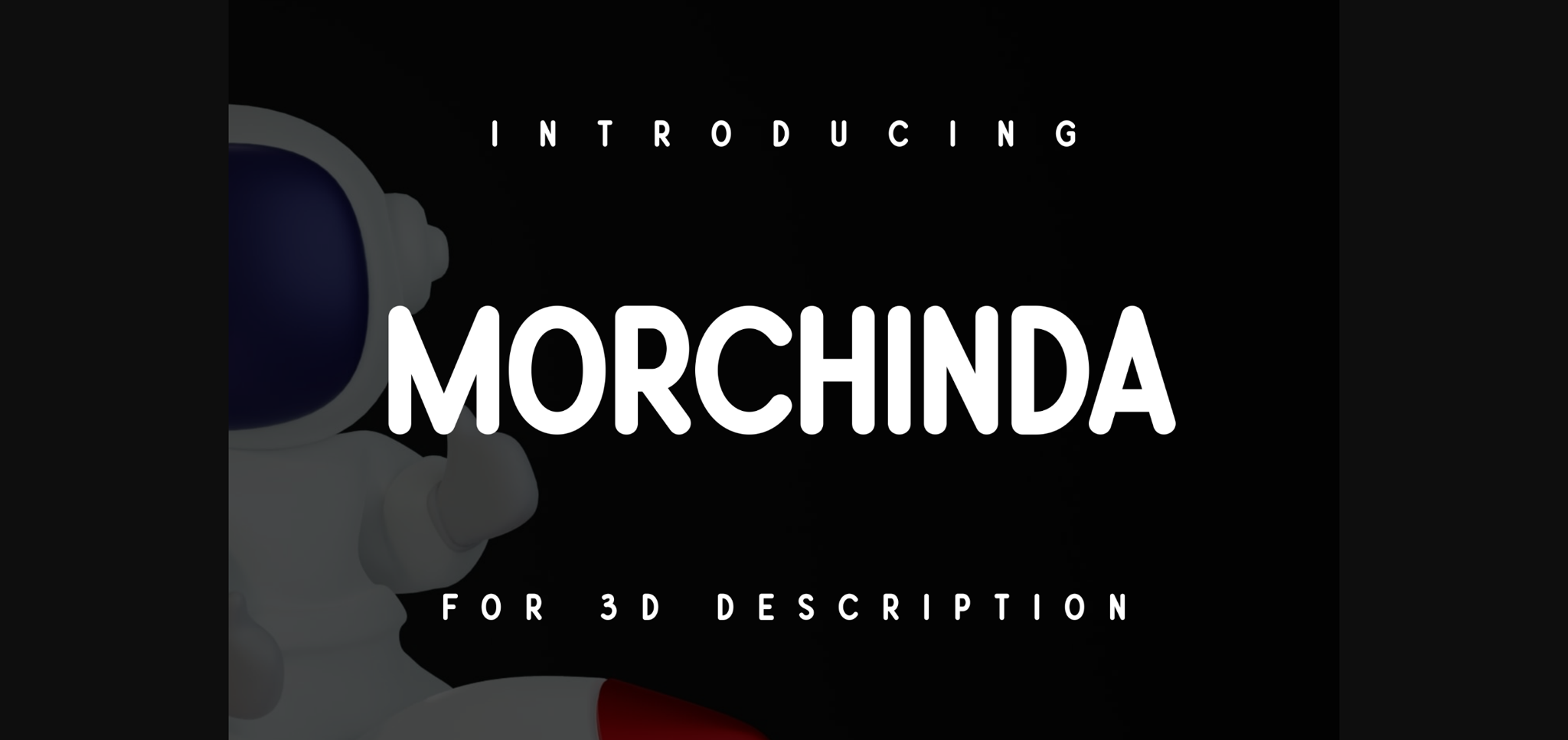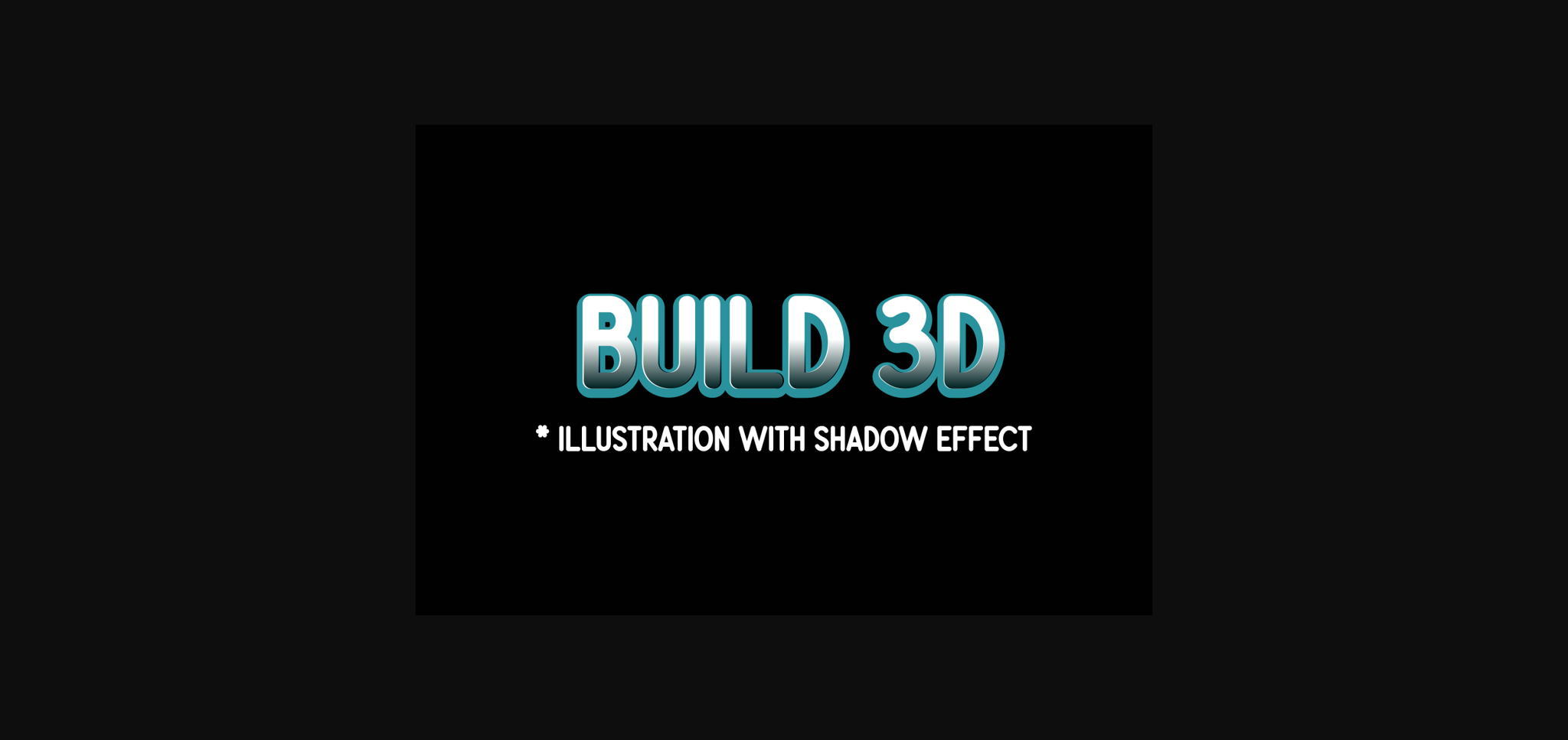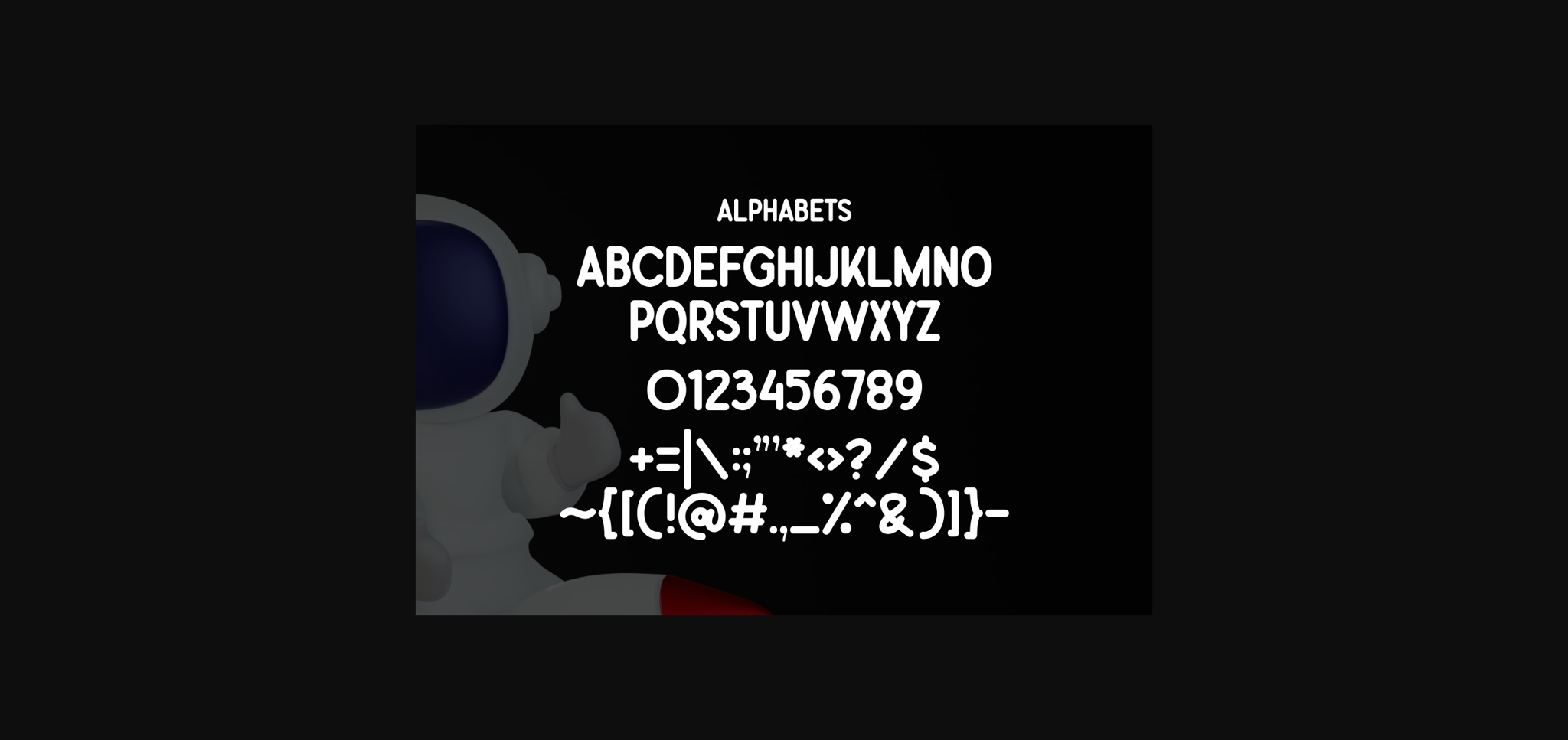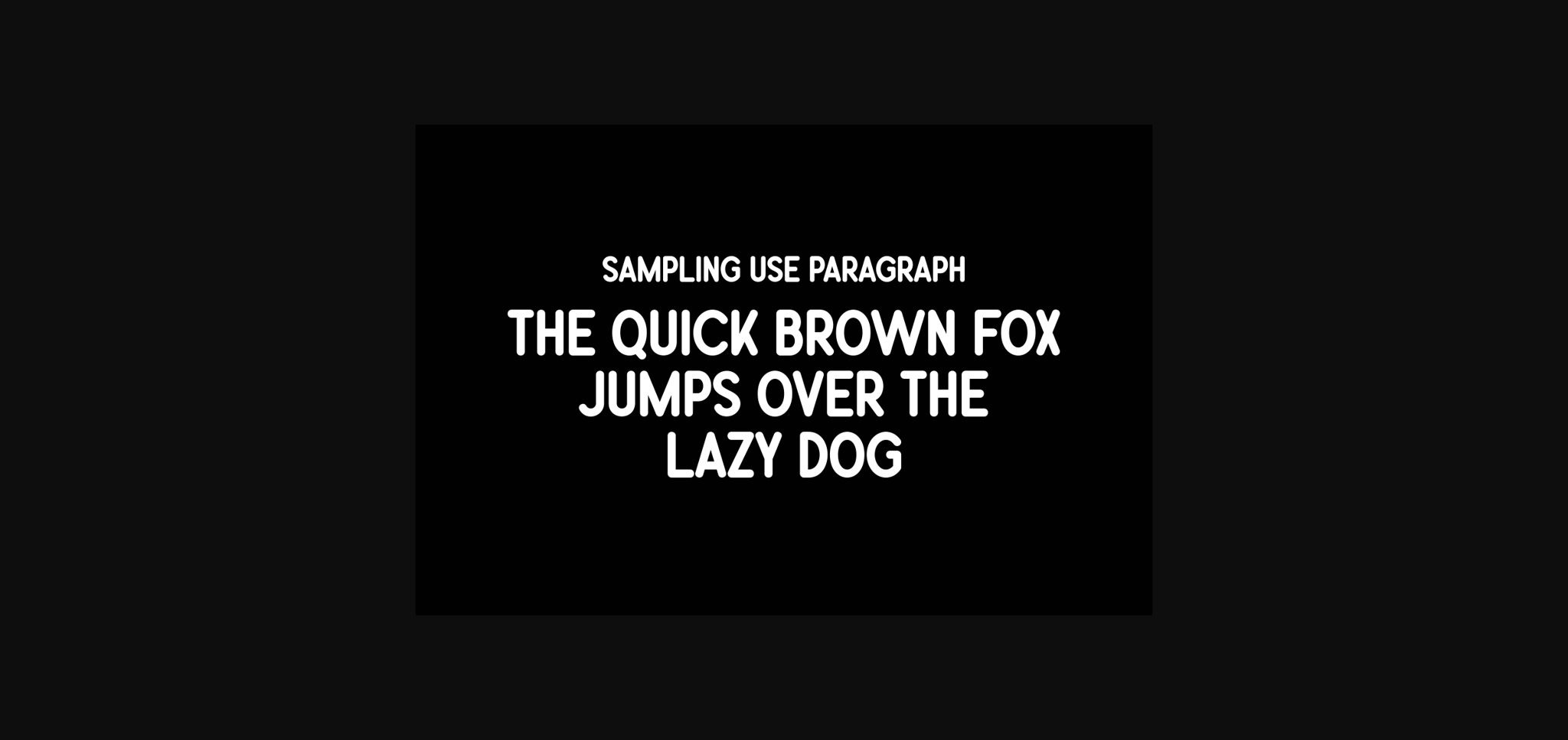
About Morchinda Font
Morchinda is an elegant and modern sans serif font. This minimalist and clean vibe can easily apply to your favorite designs such as book covers, magazines, social media posts, invitations, and so much more!